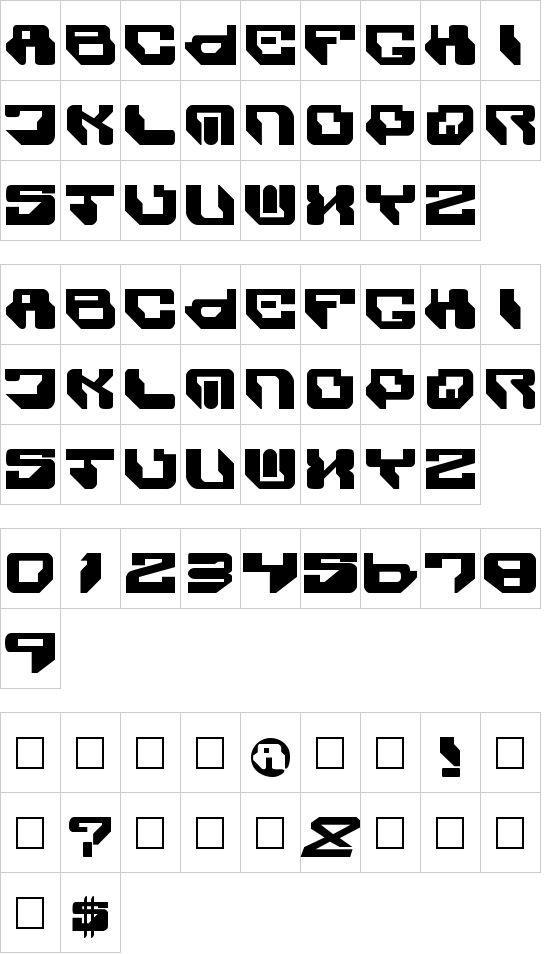
CaptivSystMRemiX is a heavy sci-fi display face with bold, futuristic letterforms and a cybernetic edge. The thick strokes and clipped, mechanical detailing give it the look of hardware and circuitry, weighty and high-tech.
That styling suits gaming titles, electronic music covers, sci-fi posters, and bold tech branding. CaptivSystMRemiX is free to download as a TrueType file, and you can preview it with your own text to see how the heavy futuristic forms read in a headline.